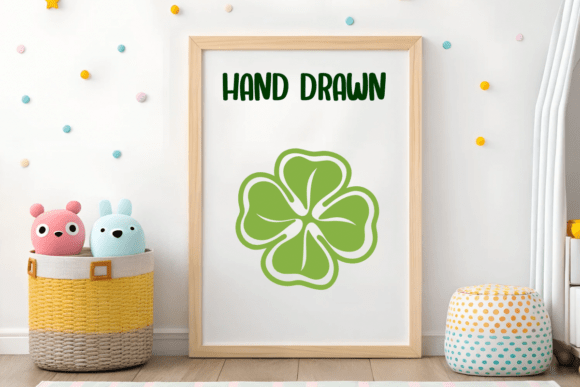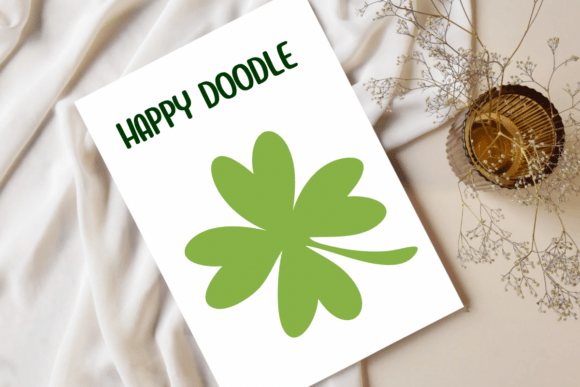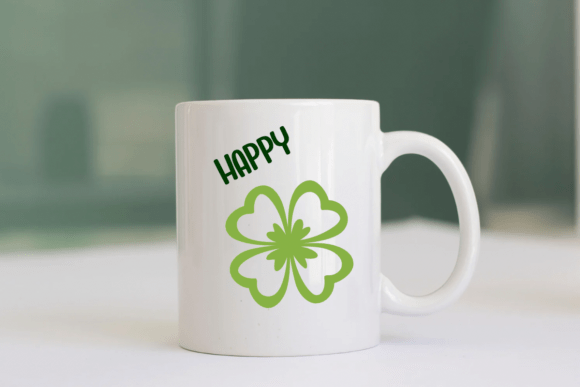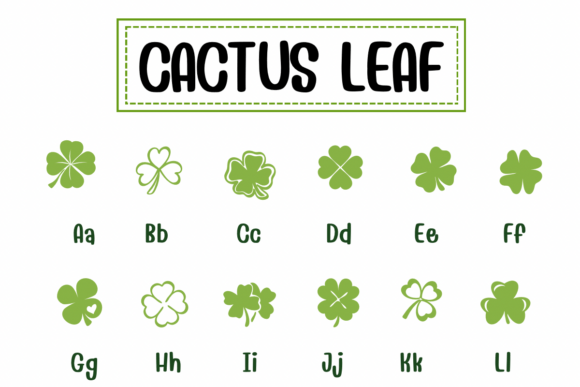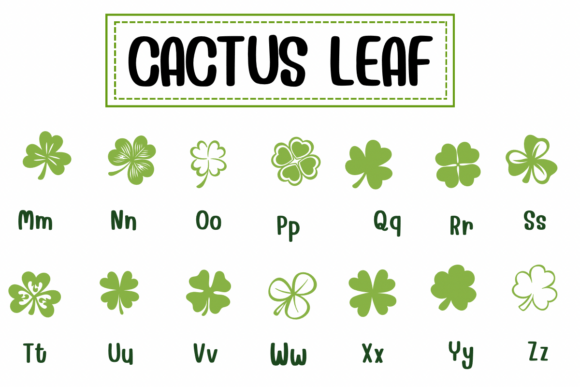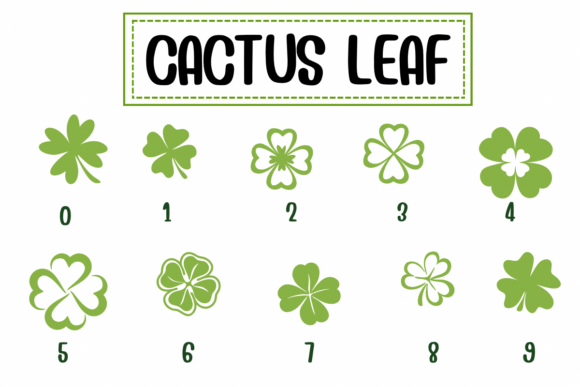
Clover Leaf Font: A Delightful Dingbats Font for Designers and Crafters
Are you looking for a unique and practical font to add a touch of luck and nature to your designs? Look no further than the Clover Leaf Font, a delightful Dingbats font dedicated to providing various styles of clover, shamrock, and four-leaf illustrations. This font is perfect for designers and crafters who want to quickly incorporate St. Patrick’s Day or general nature-themed ornamentation into their projects.
What is Clover Leaf Font?
Clover Leaf Font is a pure Dingbat Font that replaces typical alphanumeric characters with an extensive collection of vector-based leaf glyphs. The font features a wide range of illustrations, from simple outlines to solid shapes and detailed, stylized forms. This offers incredible utility for designers needing to quickly add decorative accents to their projects without searching for external clip art.
Key Features of Clover Leaf Font
- Extensive Collection of Glyphs: The font features a vast collection of vector-based leaf glyphs, including clover, shamrock, and four-leaf illustrations.
- Scalable and Easy-to-Use: The font is scalable and easy to use, making it perfect for a variety of projects, from digital designs to paper crafts.
- Perfect for St. Patrick’s Day and Nature-Themed Projects: The font is ideal for designers and crafters who want to create St. Patrick’s Day or general nature-themed projects.
- Ideal for Crafters Using Cutting Machines: The clear, simple vectors ensure perfect cuts for vinyl, stickers, and paper crafts.
Uses of Clover Leaf Font
Clover Leaf Font is a versatile font that can be used in a variety of projects, including:
- Patterns and Borders: Use the font to create beautiful patterns and borders for your designs.
- Scrapbooking: Add a touch of luck and nature to your scrapbooking projects with the Clover Leaf Font.
- Holiday Greeting Cards: Create festive holiday greeting cards with the font’s St. Patrick’s Day-themed illustrations.
- Educational Materials: Use the font to create educational materials, such as worksheets and activity sheets, with a nature-themed twist.
Clover Leaf Font offers several benefits for designers and crafters, including:
- Saves Time: The font saves designers and crafters time by providing a quick and easy way to add decorative accents to their projects.
- Increases Creativity: The font’s extensive collection of glyphs inspires creativity and allows designers and crafters to experiment with different designs.
- Perfect for Small Projects: The font is ideal for small projects, such as paper crafts and vinyl designs, where a personal touch is desired.
Tips for Using Clover Leaf Font
Here are some tips for using Clover Leaf Font:
- Experiment with Different Sizes: Experiment with different font sizes to achieve the desired effect.
- Combine with Other Fonts: Combine Clover Leaf Font with other fonts to create unique and interesting designs.
- Use in Digital Designs: Use the font in digital designs, such as social media graphics and blog posts, to add a touch of personality.
Clover Leaf Font is a delightful and practical Dingbats font that offers a wide range of clover, shamrock, and four-leaf illustrations. The font is perfect for designers and crafters who want to quickly incorporate St. Patrick’s Day or general nature-themed ornamentation into their projects. With its extensive collection of glyphs, scalable and easy-to-use format, and versatility, Clover Leaf Font is an ideal tool for anyone looking to add a touch of luck and nature to their designs.